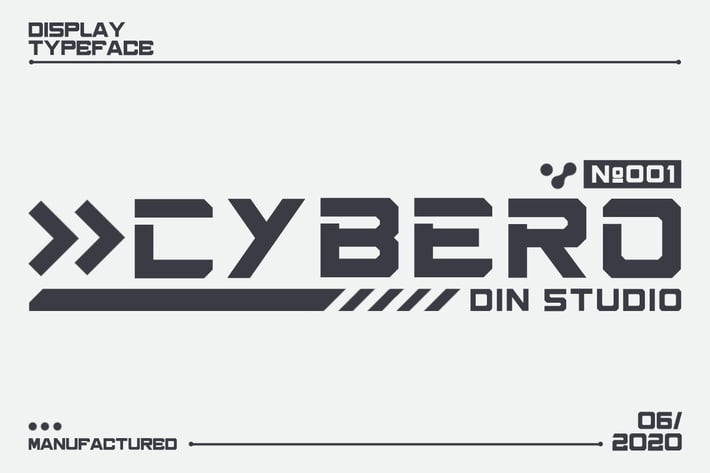
Cybero - Authentic Display Font
Din-Studio
Cybero is a bold and authentic display font. It celebrates abstract shapes in all their eclectic beauty. This font will look truly
outstanding in a wide range of contexts.